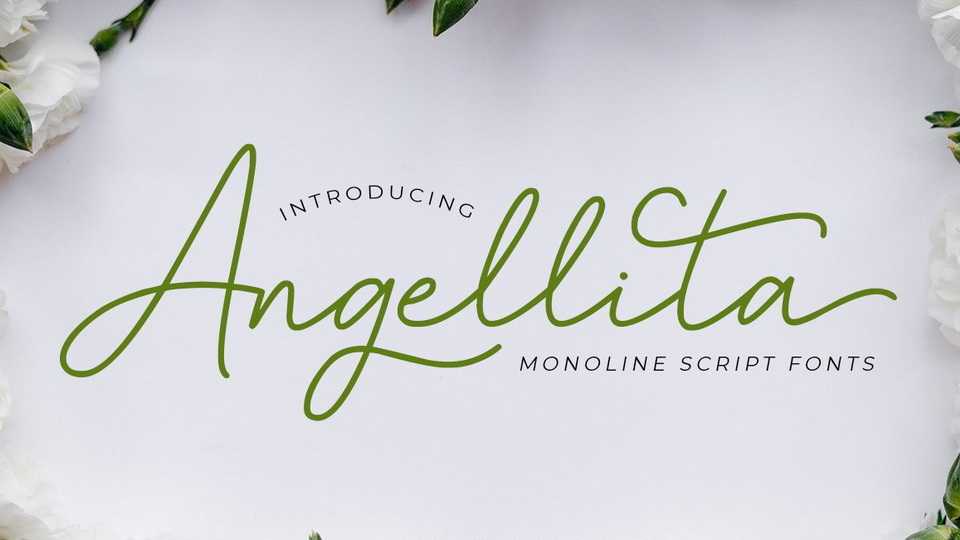
Download Angellita font, a sweet and simple script typeface with a romantic feel. Angellita font is suitable for wedding, signature, branding, t-shirt designs, logos, magazines, quotes, fashion, watermarks, invitations.